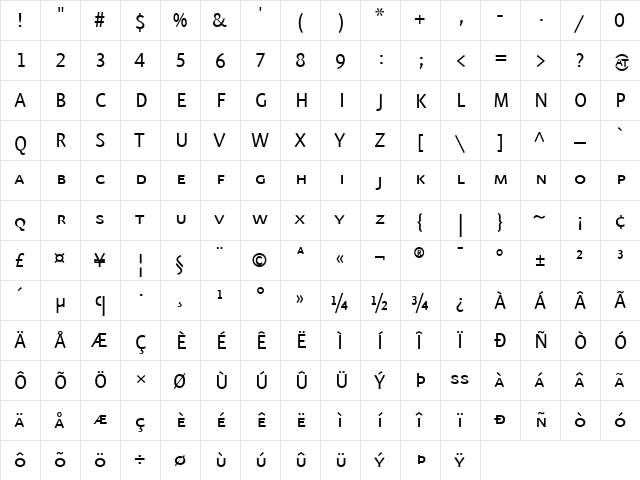
EurekaSans-RegularCaps Regular Font Preview
EurekaSans-RegularCaps Regular
EurekaSans-RegularCaps Regular Font Details
| Foundry | Peter Bilak, published by FontShop International for the FontFont library |
Design Context for EurekaSans-RegularCaps Typeface
EurekaSans-RegularCaps offers clean, dependable letterforms without strong stylistic allegiance, making it a practical choice for designers who need flexibility.